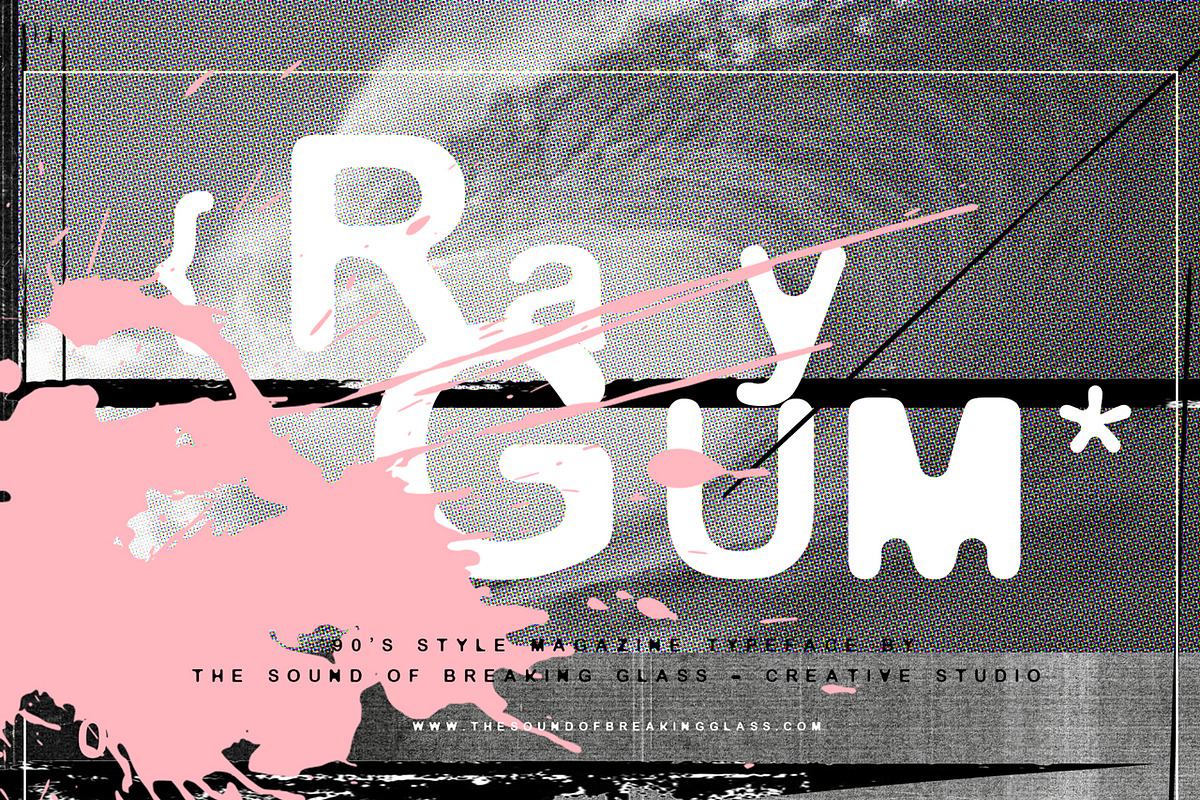
RayGum | Regular Font Free Download is a clean, modern sans serif typeface with a touch of playfulness. Featuring smooth lines, rounded edges, and a friendly, approachable style, RayGum is perfect for branding, digital interfaces, social media posts, advertisements, and minimalistic design projects.
Its simplicity and readability make it ideal for both headlines and body text, offering versatility in any design. Whether you're building a professional brand identity or a sleek web layout, RayGum provides a contemporary look that suits a wide range of creative needs.